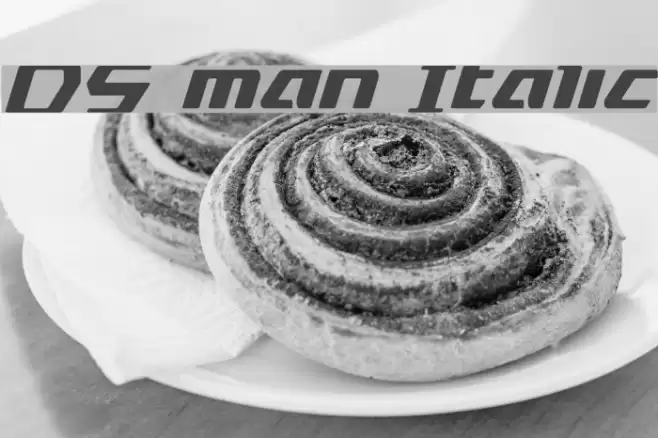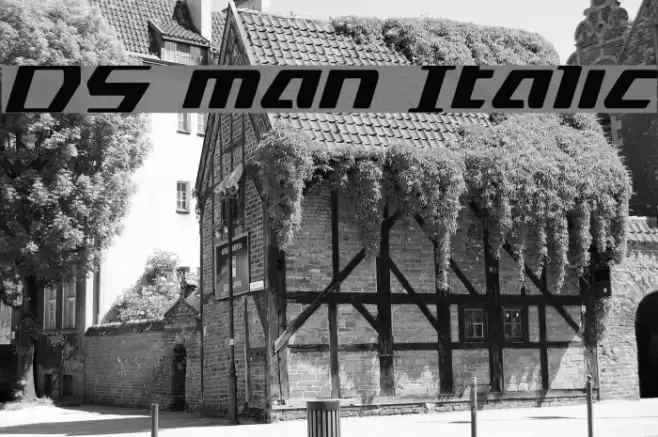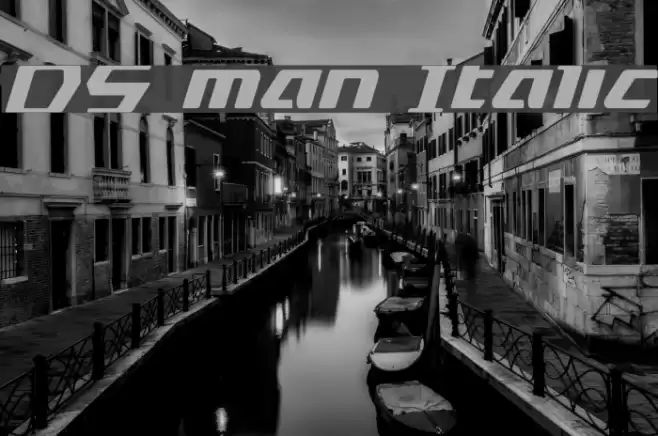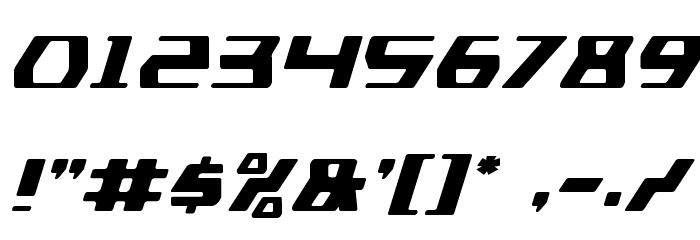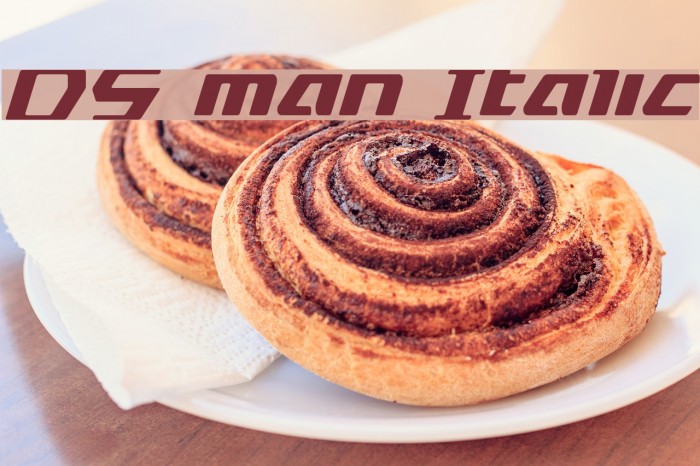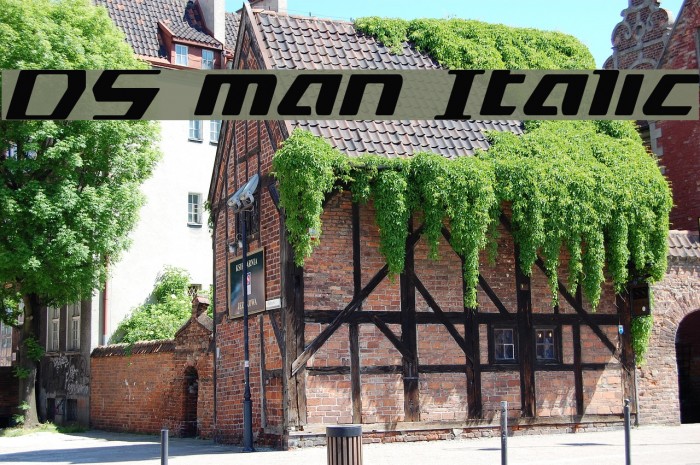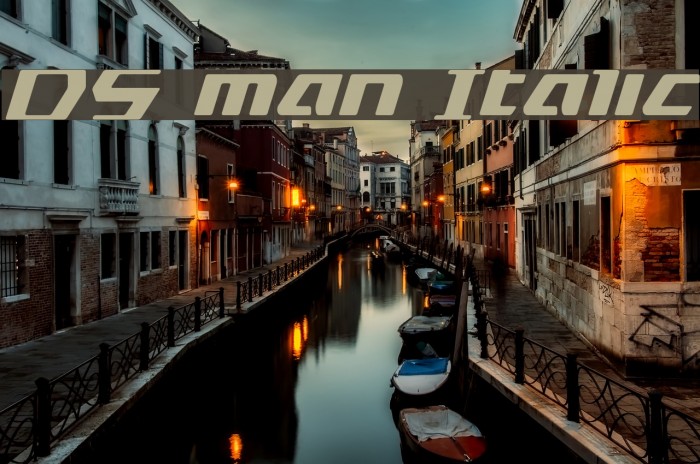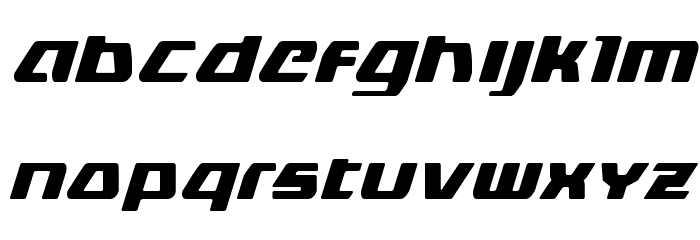
DS man Italic Font
DS man Italic Description
This font features a bold and dynamic style with a forward-leaning italic slant, giving it a sense of movement and energy. The characters are angular and geometric, with sharp edges and a futuristic appearance. The uppercase and lowercase letters maintain a consistent design, providing a cohesive look across the alphabet. The numerals and special characters follow the same stylistic approach, ensuring uniformity. The font's boldness and unique style make it stand out, suitable for projects that require a modern and edgy aesthetic.
A bold, italic, and angular font with a futuristic style from Uncategorized fonts.
- Proposed Projects: Ideal for sports branding, video game titles, sci-fi movie posters, and tech-related logos.